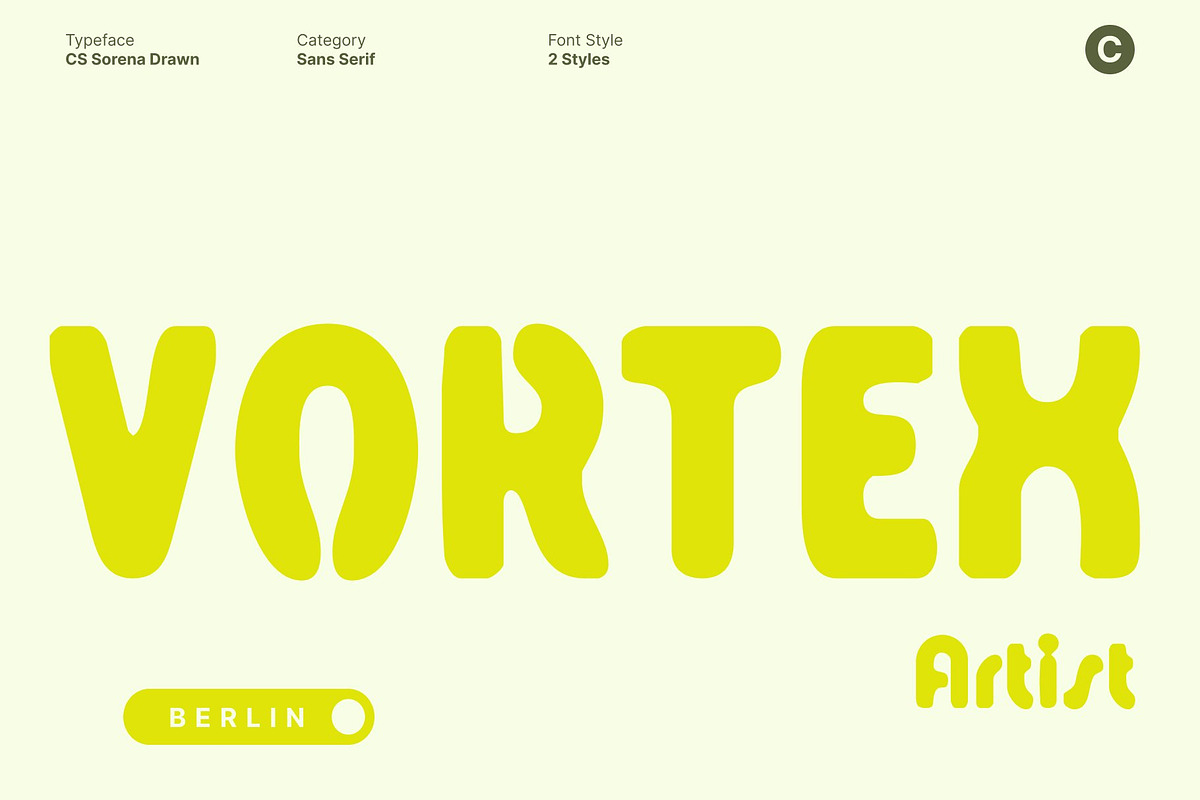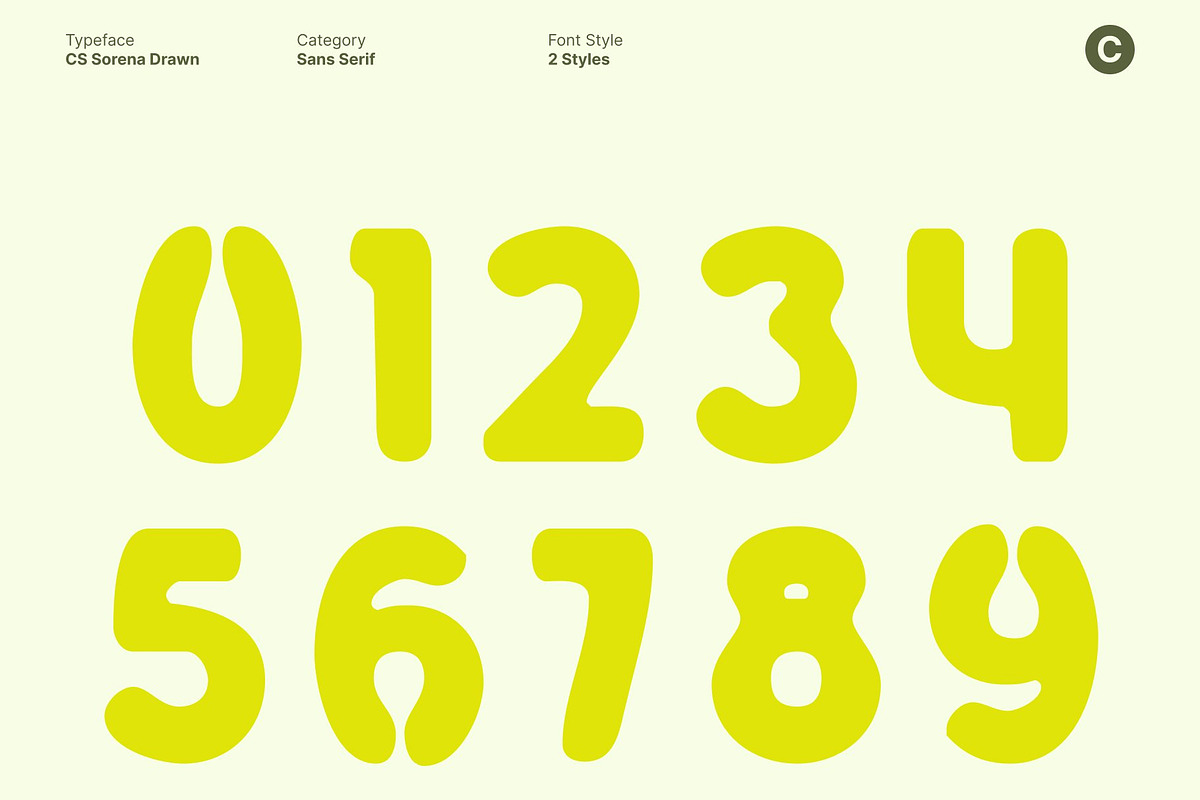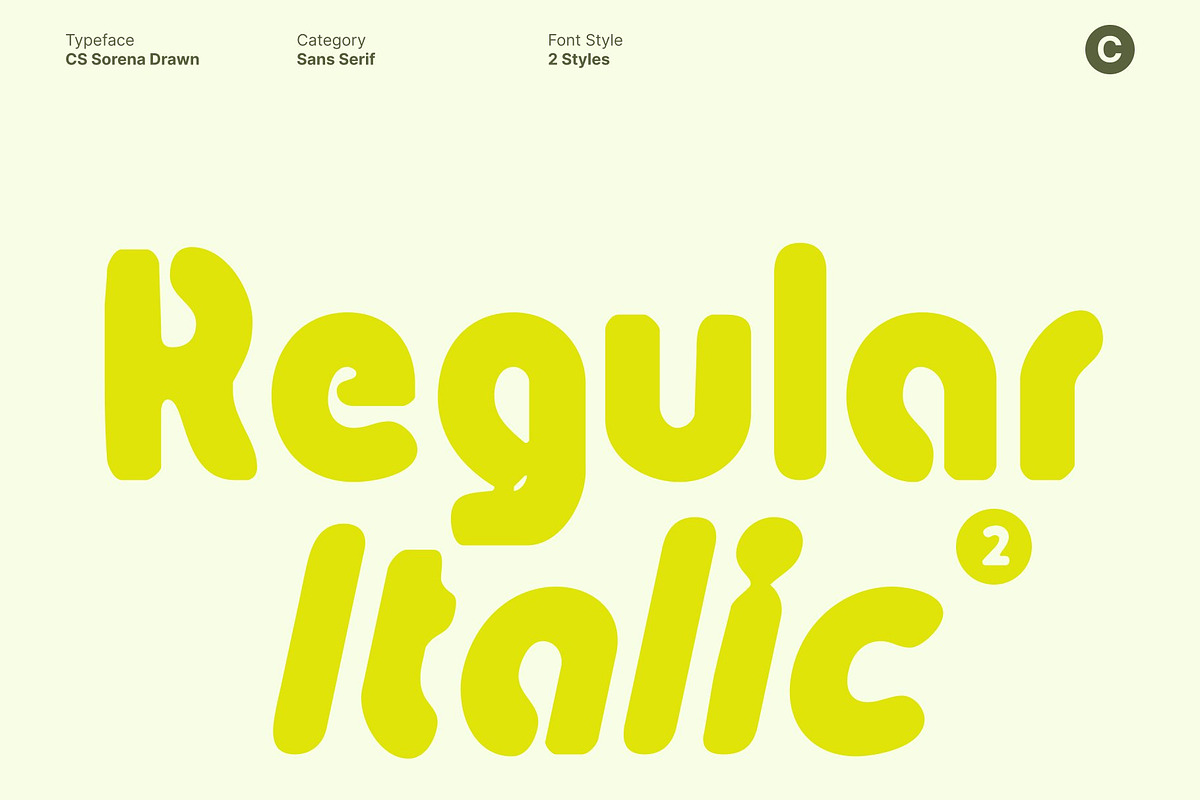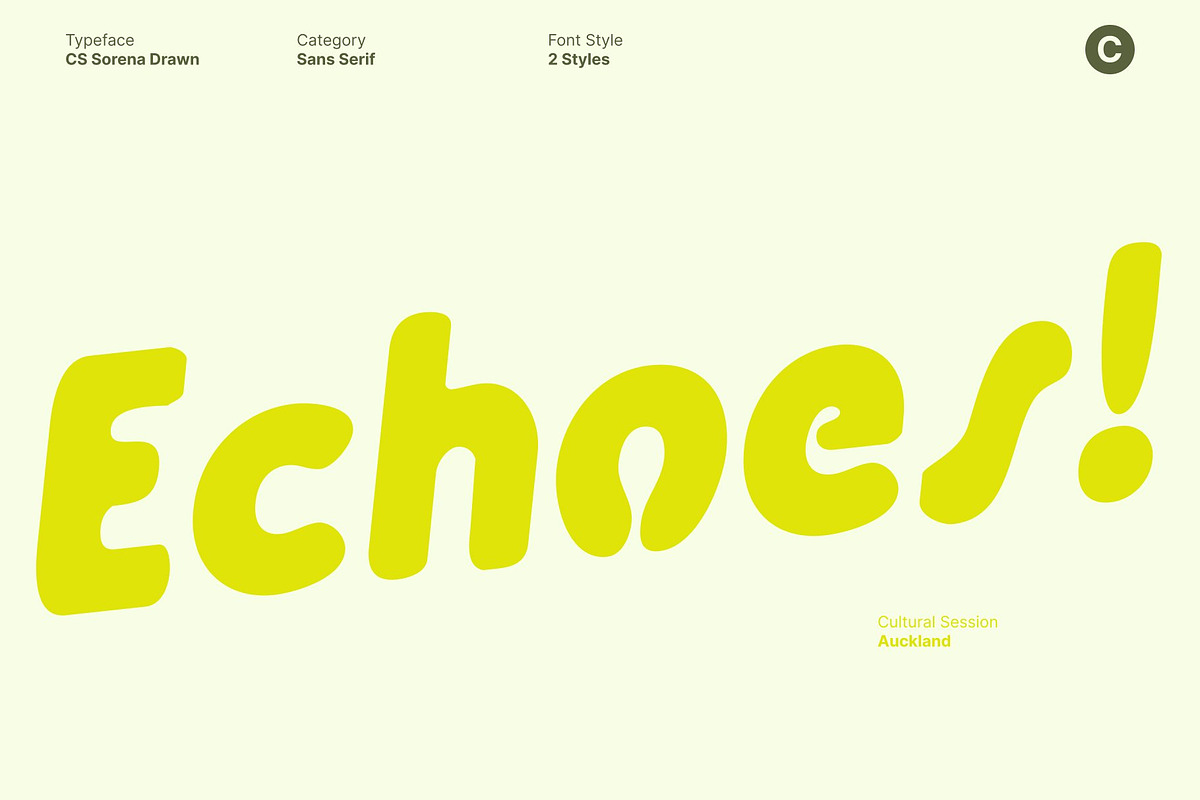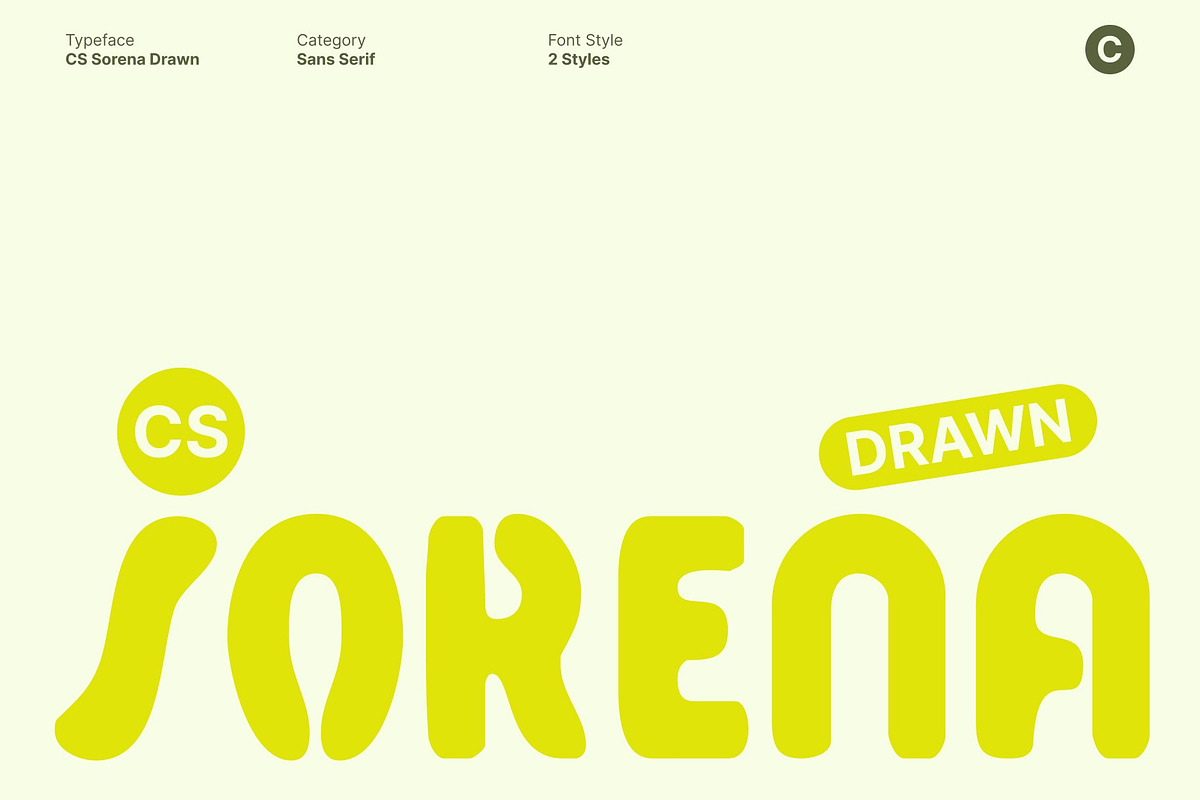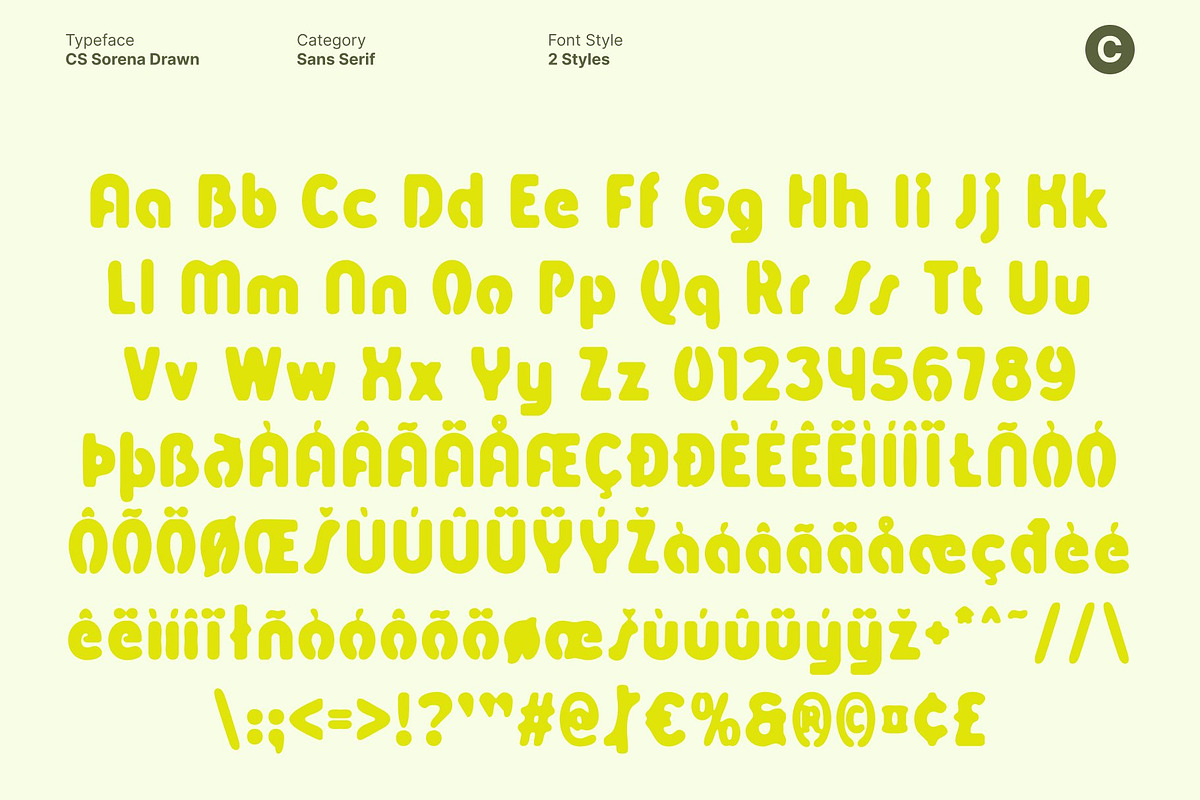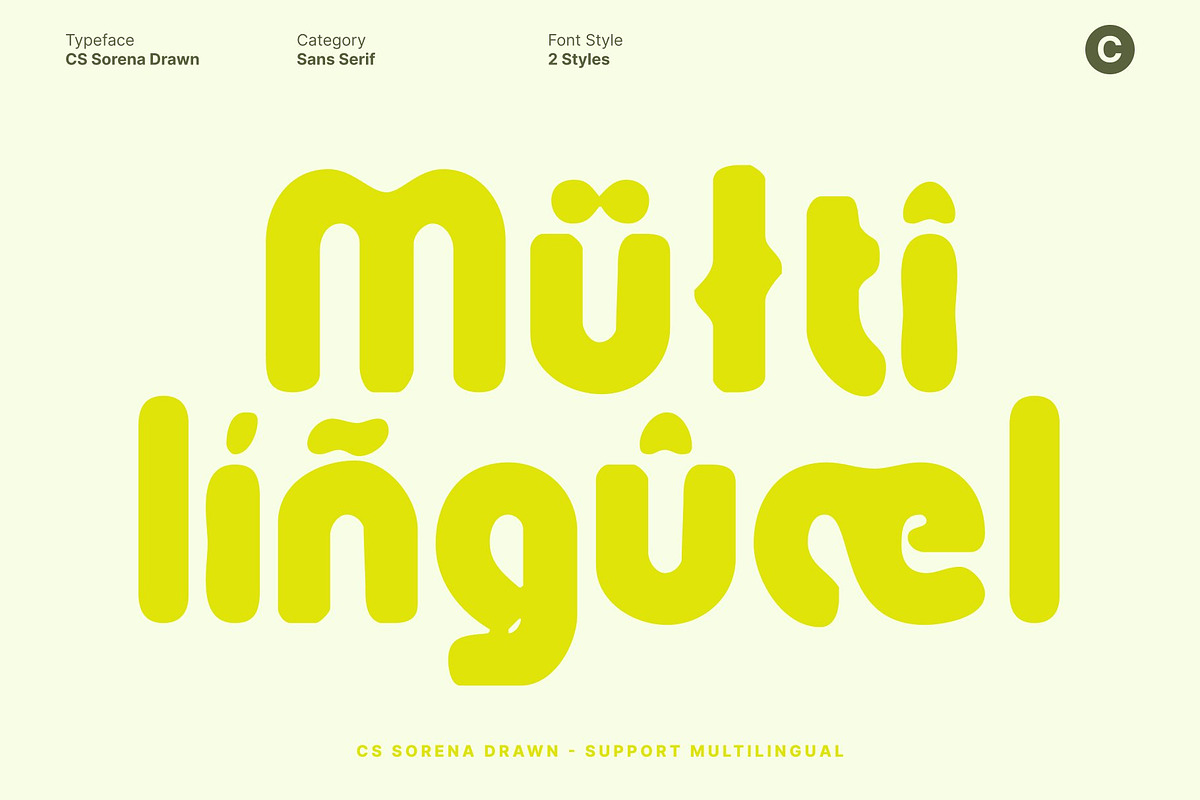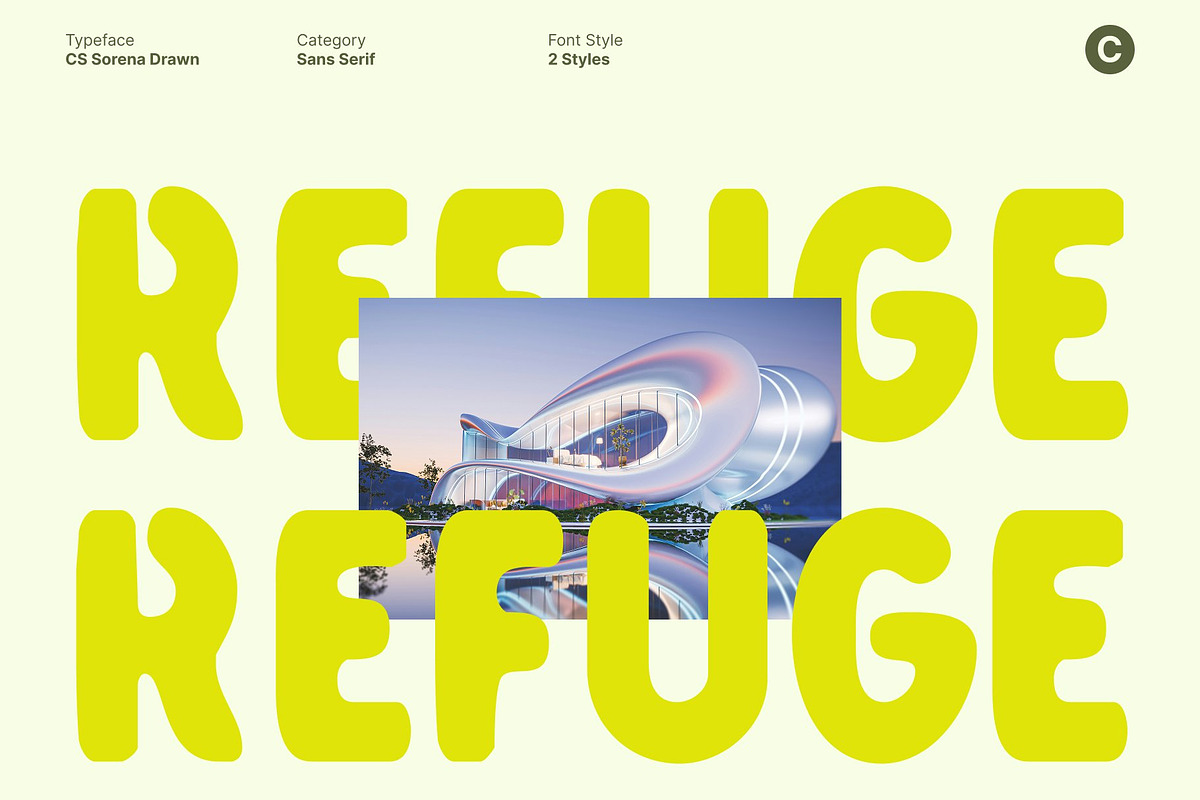
CS Sorena Drawn
CS Sorena Drawn – Retro Sans Serif Font with Playful Vintage Energy
Bold Retro Shapes with Timeless Appeal This brings back the charm of classic retro typography through bold, rounded shapes and clean sans serif structure. Its nostalgic style captures the lively spirit of mid-century design, making it perfect for projects that want to feel fun, friendly, and full of vintage character. Every letter radiates playful energy and timeless charm.
Hand-Drawn Texture for Authentic Vintage Character With its expressive drawn effect, embraces handcrafted imperfections that make the design feel organic and unique. The textured edges and subtle irregularities add warmth and personality, enhancing the retro atmosphere. This hand-drawn finish gives each character an authentic, nostalgic touch that elevates any creative layout.
Ideal for Branding, Posters, and Retro Campaigns This font shines in any project that celebrates bold personality and vintage flair. Use this font for retro branding, posters, editorial graphics, packaging, advertising campaigns, or social media designs that need a standout retro vibe. Its strong shapes ensure clear readability while still offering a fun and expressive style.
A Versatile Typeface with Playful Nostalgic Vibes This font blends the clean structure of a sans serif with the charm of retro design and the liveliness of hand-drawn texture. The result is a typeface that feels classic yet creative, bold yet warm perfect for designers seeking a nostalgic font that adds personality and handcrafted appeal to every project.